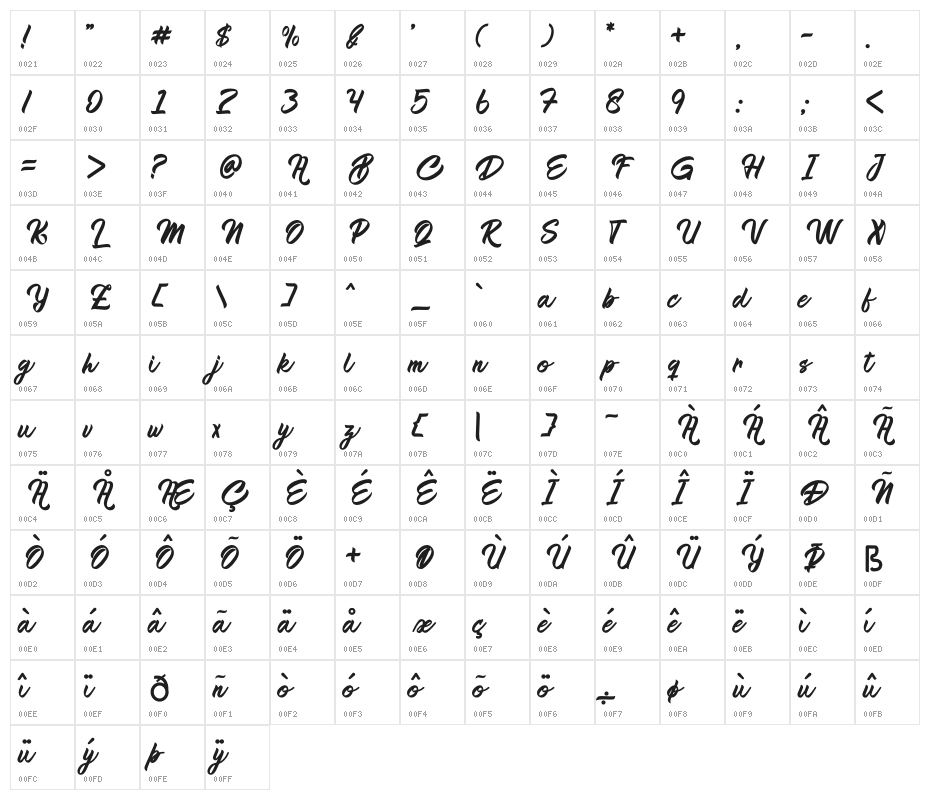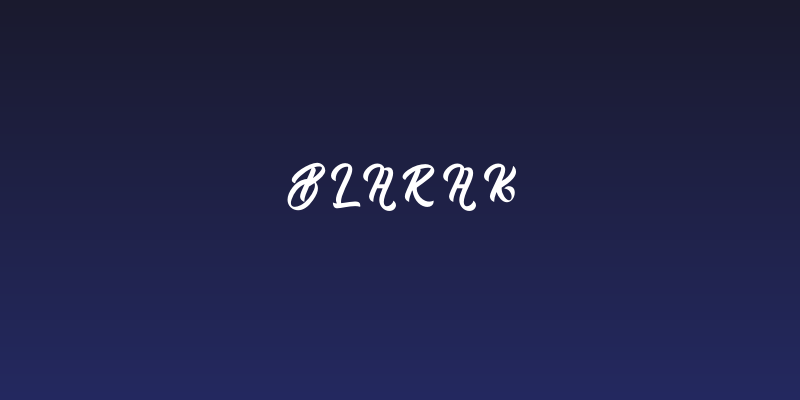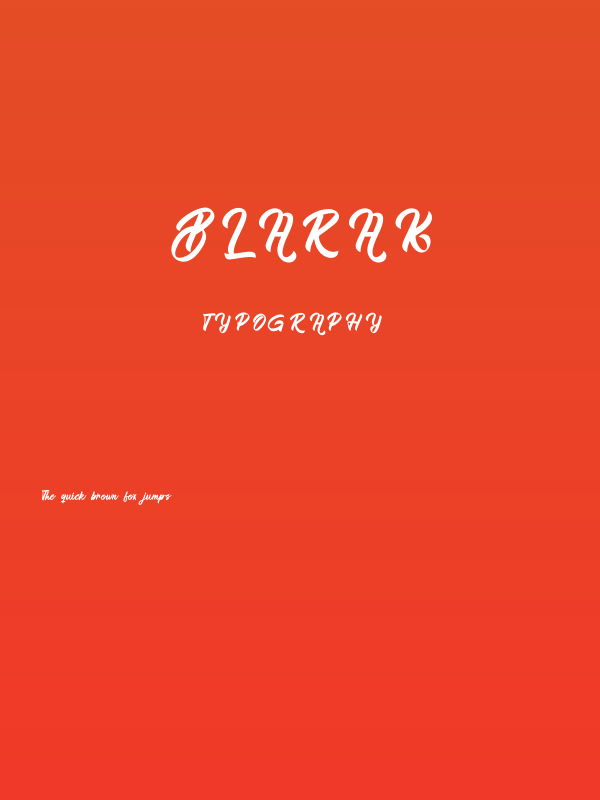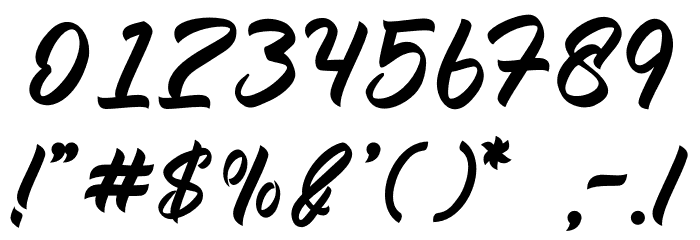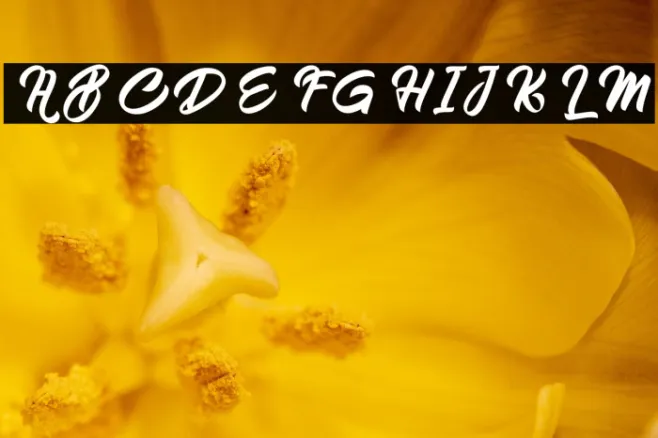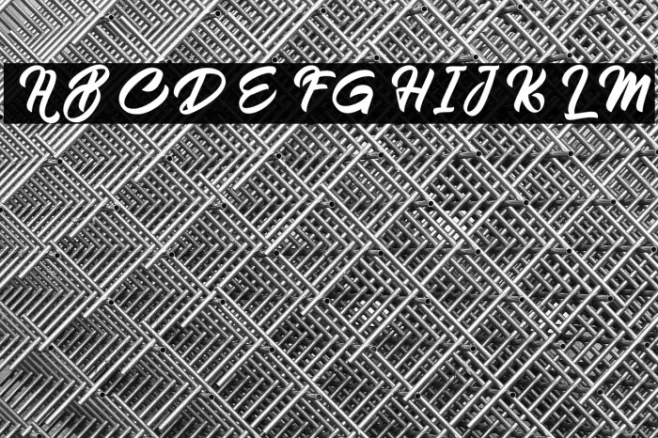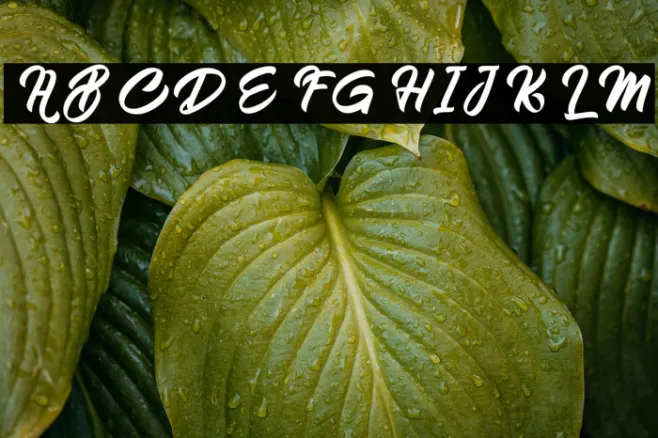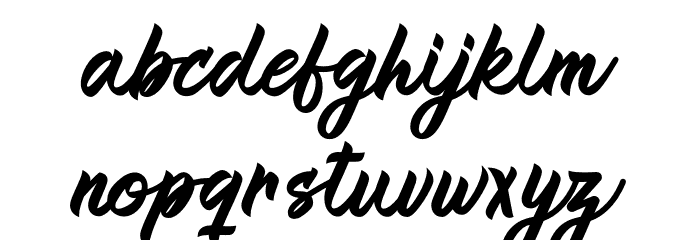
Blarak Font
Blarak Description
This font features a bold, cursive style with smooth, flowing lines that give it a dynamic and energetic appearance. The uppercase letters are slightly more upright, while the lowercase letters have a more pronounced slant, enhancing the script-like quality. The numbers and special characters maintain the same fluidity, ensuring consistency across all characters. The strokes are thick, providing a strong visual impact, and the overall design is both elegant and playful, making it suitable for a variety of creative applications.